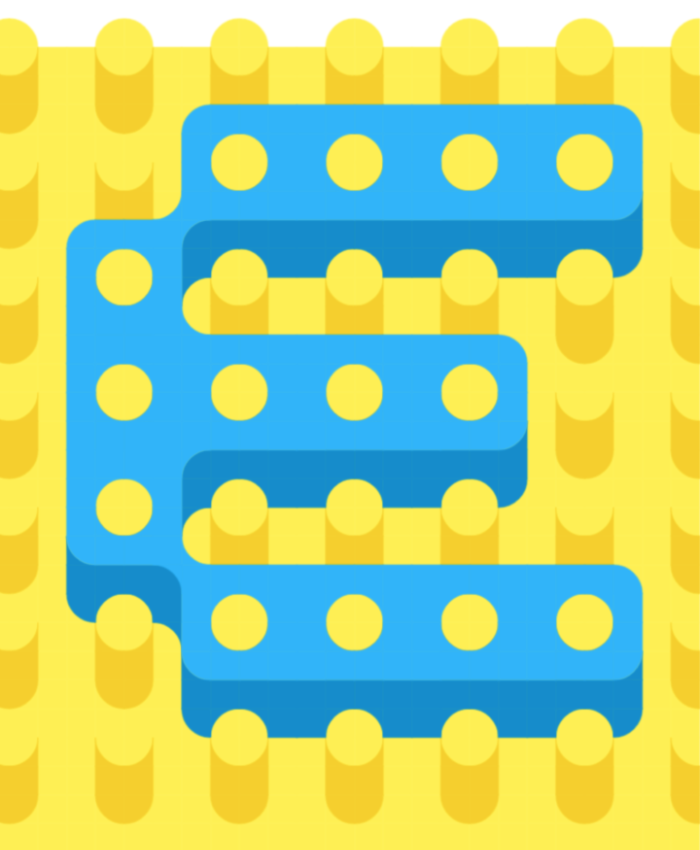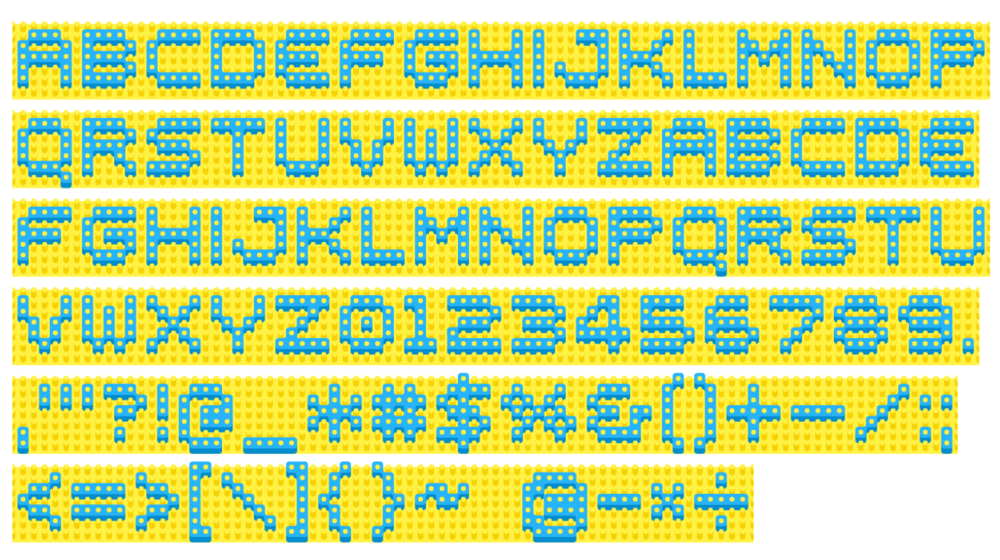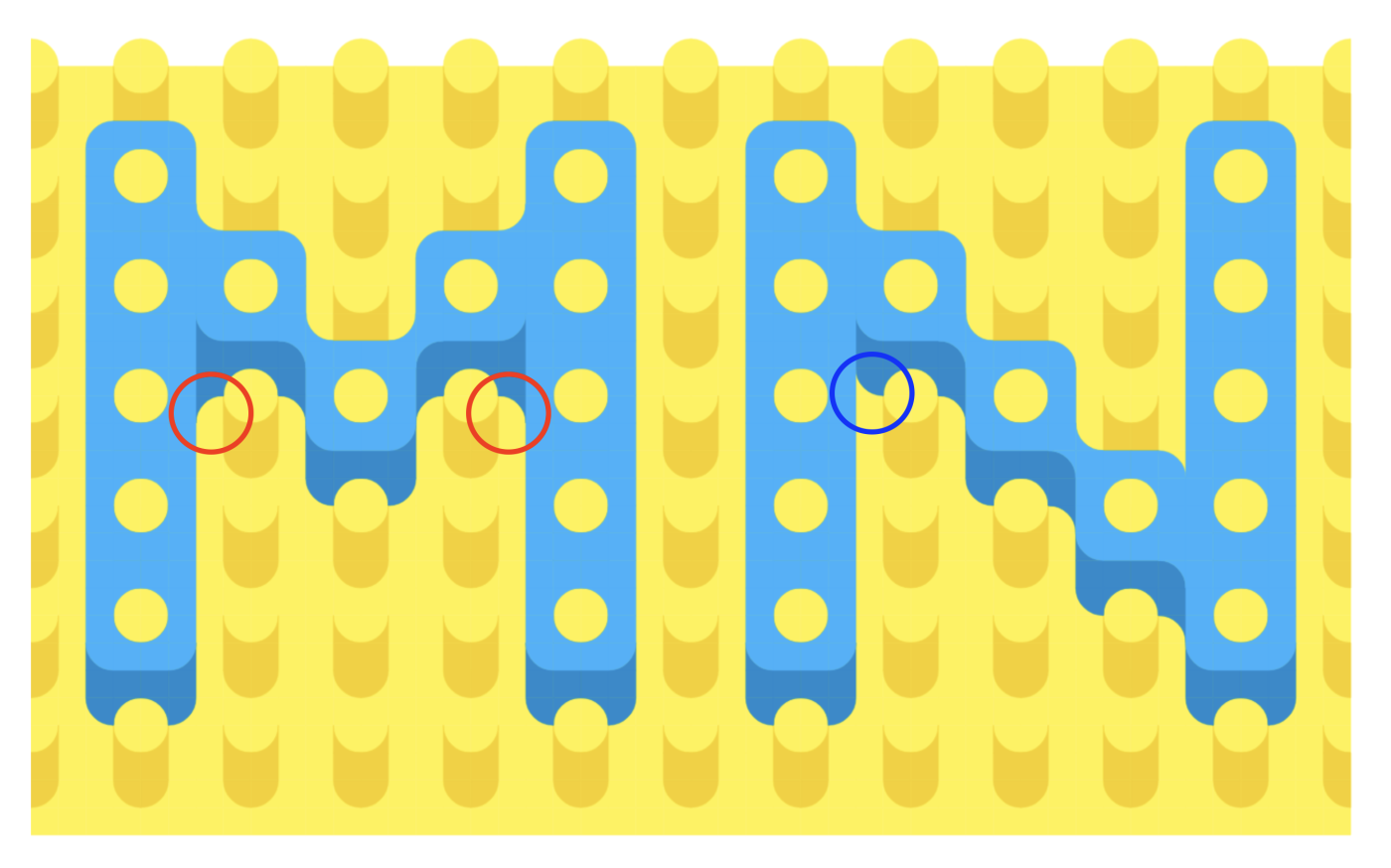
• A modular colour font inspired by toy bricks and soft plastic textures, suggested to use in large sizes.
Softstruct is a cheerful display font that captures the tactile charm of children’s construction toys. Designed on a pixel grid, it uses rounded letterforms that resemble foam or rubber pieces, each perforated with uniform circular “studs” that echo toy bricks or pegboards. Though rooted in pixel structure, the glyphs are softened with subtle curves and shading, giving them a squishy, almost rubbery appearance.
Perfect for kids' projects, game titles, and playful branding.
Looks pretty nice, but the space character feels like it's a bit too wide. I wonder if it could be reduced by one peg?
@Bryndan W. Meyerholt (BWM): Thank you for your comment and vote. It is certainly possible to change the width of the space. The general rule is that it should be as wide as the letter i — here, it is three pegs. Actually, I've increased the space by one peg to have a more comfortable separation of words. I might add a glyph with a single column of pegs to allow users to set spaces incrementally at will.
The new narrow space glyph is on the VERTICAL LINE slot (U+007C), easy to access on standard keyboards.
The use of the basic bricks to create something exceptional like this is a testament to your vision, creativity and skill. Excellent work as always.
@thalamic: Thank you. Well spotted. This fontstruction only uses nine basic bricks and no fancy techniques such as filters or nudge. I think the selection of colours was crucial to achieving the final visual effect.
A mix of lego and tetris of sorts. Useful and lovely.
Very tactile, a typographic toy that I would like to play with.
Great idea, reminds me the letterboard I used to have as kid. The letters were to tear from plastic sprue and press on thin rails on the boards.
Simple complexity. Simplexity. Well played, Frodo
Puzzle letters
This is an updated character set. I changed the C, I, M, and W. For the record, the original colours are as follows: #24b3fc, #008bce, #f6d000, #fff142.
It looks like Hama perlerbeads but it's joined into letters.
@NewCurvenBig and Miguel Gil: adding the extended Latin characters — with diacritical marks at the top and bottom — would significantly increase the font's vertical dimension and leading. For standard English text, that would result in large swathes of white space (well, yellow areas with studs). If I decide to do it, it will be a separate font.
I've a wonderful time studying your beautiful works, like this. Take a look at this little detail, dear Maestro.
@elmoyenique: Thank you. That's what I call imperfection, not design choice. Number 9 was also affected. I'll check the whole set and correct all defects. They say, a font is never finished.